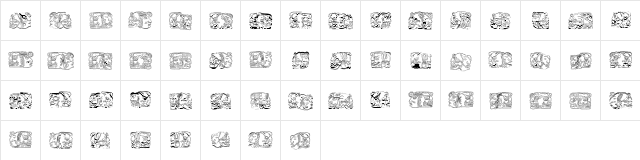
Spirit of Montezuma Five Regular
| Foundry | Paulo W, IntellectaDesign |
Design Context for Spirit of Montezuma Five Typeface
Spirit of Montezuma Five is a composed and adaptable typeface that performs quietly and consistently across a wide range of design contexts.